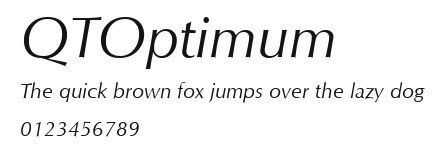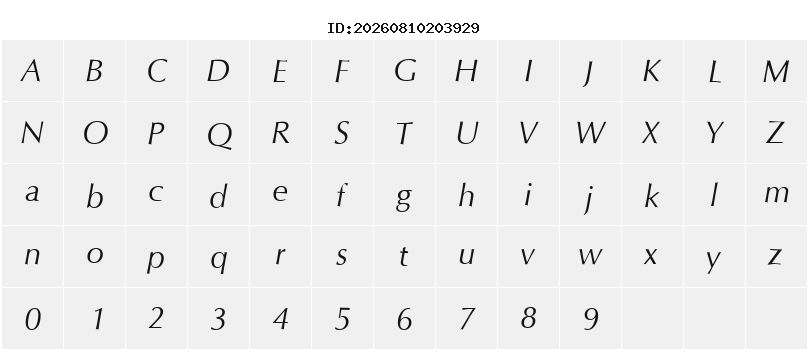
• Font Name: QTOptimum
QTOptimum.ttf is a modern, elegant sans-serif font designed for ultimate readability and visual harmony. Perfect for branding, headlines, web design, and print materials.